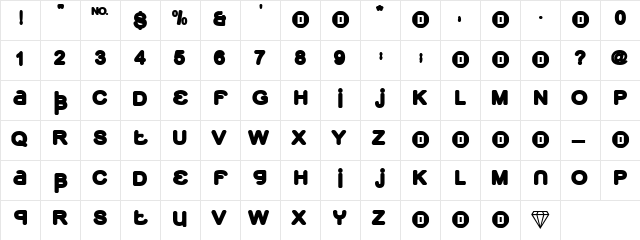
BigDiamonds Regular
Design Context for BigDiamonds Typeface
BigDiamonds is a composed and adaptable typeface that performs quietly and consistently across a wide range of design contexts.
Pro Tip: Use BigDiamonds in both headline and body roles to test its range before committing to a single application.